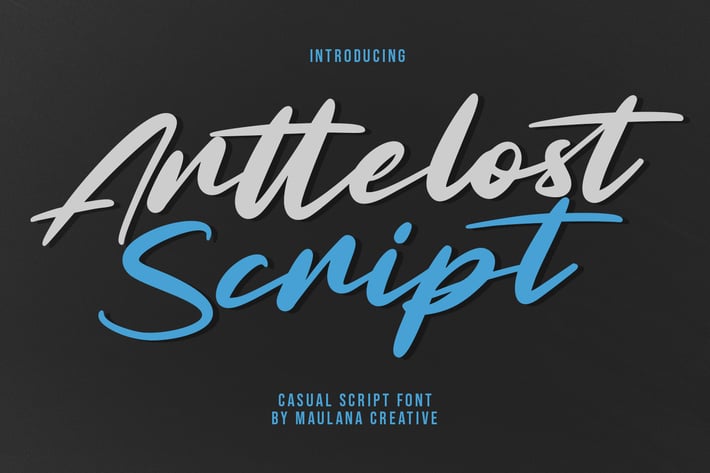
Arttelost Casual Script Font
Arttelost is a casual script font. With regular contrast stroke, slanted and fun character with a bit of ligatures and lowercase alternatives. To give you an extra creative work. Arttelost font support multilingual more than 100+ language. This font is good for logo design, Social media, Movie Titles, Books Titles, a short text even a long text letter and good for your secondary text font with sans or serif. Make a stunning work with Arttelost font.